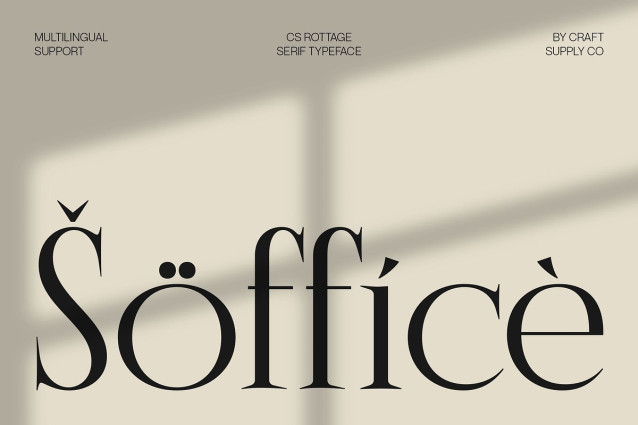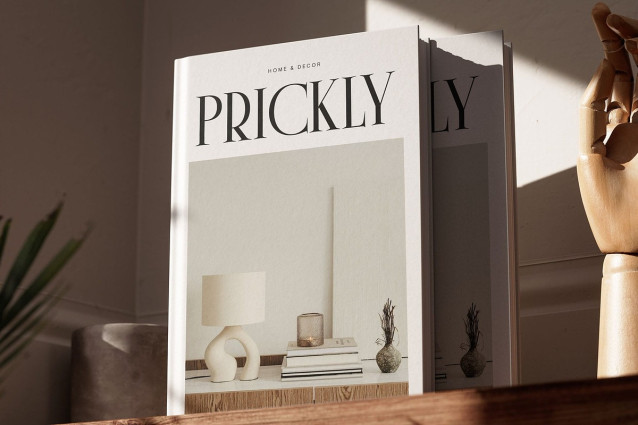
CS Rottage Font
CS Rottage Font – Classic Sophistication with Modern Simplicity Timeless Serif with Refined Beauty This is a classic serif font that blends traditional elegance with contemporary clarity. Its clean, sleek shapes and balanced proportions create a sophisticated visual rhythm, ideal for designers who appreciate subtle luxury and polished aesthetics. Every curve and serif detail contributes to an effortlessly beautiful composition that feels both timeless and modern.
Elegant Design for Luxurious Impressions The refined structure of this font radiates elegance and sophistication. Its delicate serifs and smooth transitions give text a graceful flow, while the minimalist execution ensures visual harmony. This makes it perfect for high-end branding, premium packaging, or editorials that require a touch of class and distinction.
Versatile for Modern Creative Use Beyond its classic charm, This font adapts seamlessly to various creative applications. Whether featured on posters, invitations, logos, or magazine layouts, it delivers a refined and stylish tone that captivates audiences. Its contemporary simplicity makes it a reliable choice for projects that balance artistry with professionalism.
A Perfect Blend of Tradition and Modernity This font captures the essence of both old-world sophistication and modern design sensibility. The result is a typeface that feels timeless yet fresh ideal for luxury brands and creative professionals seeking a font that communicates confidence, refinement, and enduring beauty.